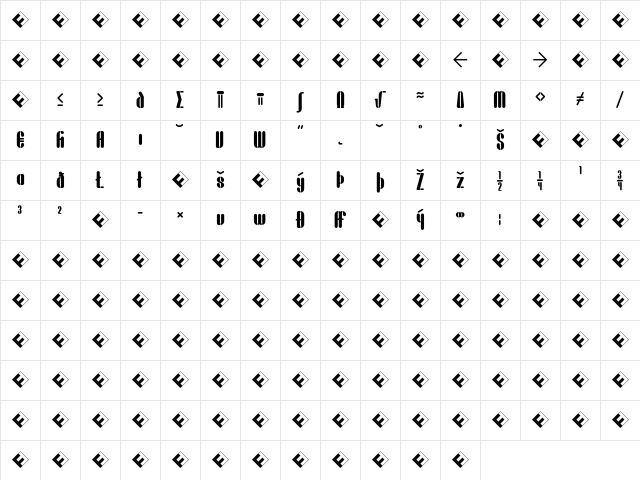
Chernobyl RegularExpert
Style: RegularExpert
Design Context for Chernobyl
Chernobyl is a composed and adaptable typeface that performs quietly and consistently across a wide range of design contexts.
Pro Tip: Use Chernobyl in both headline and body roles to test its range before committing to a single application.